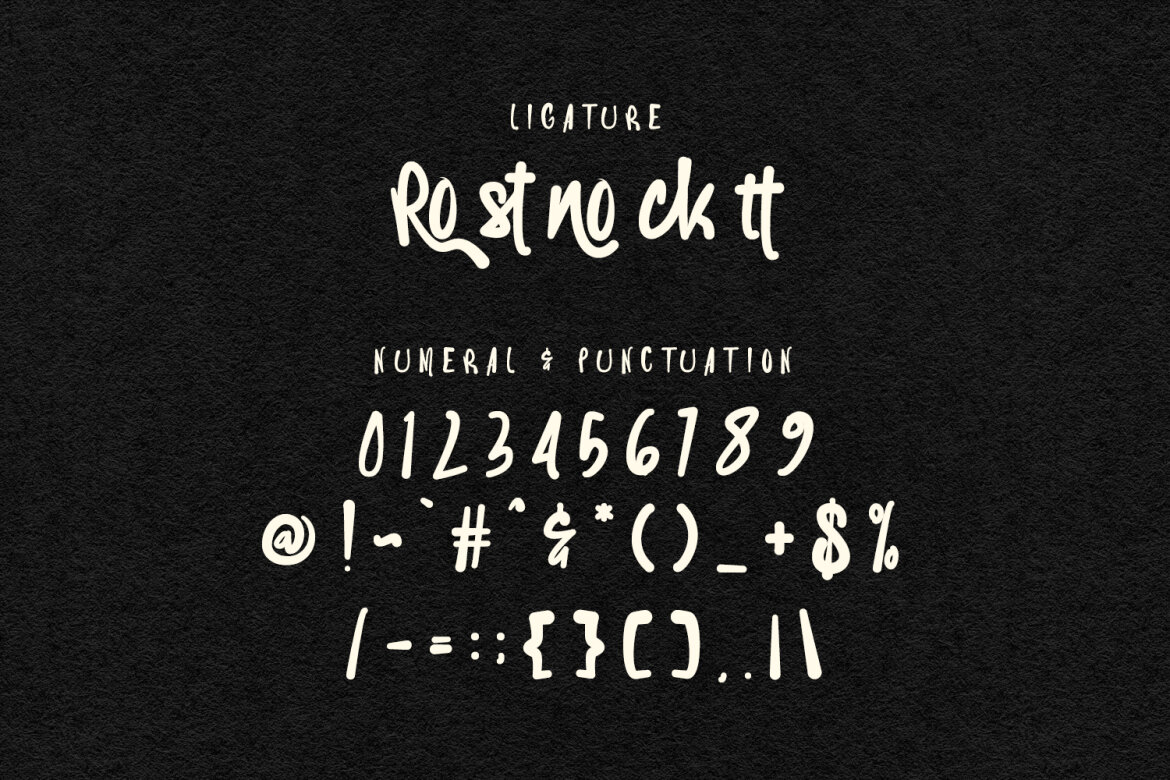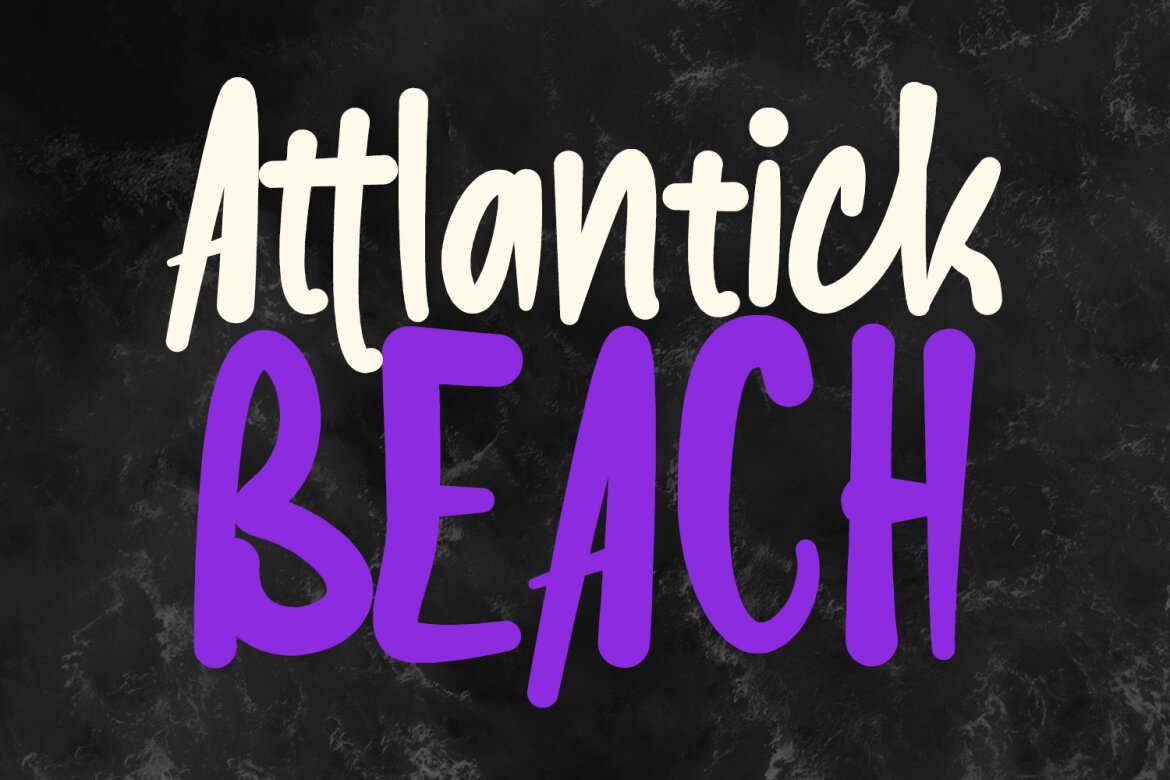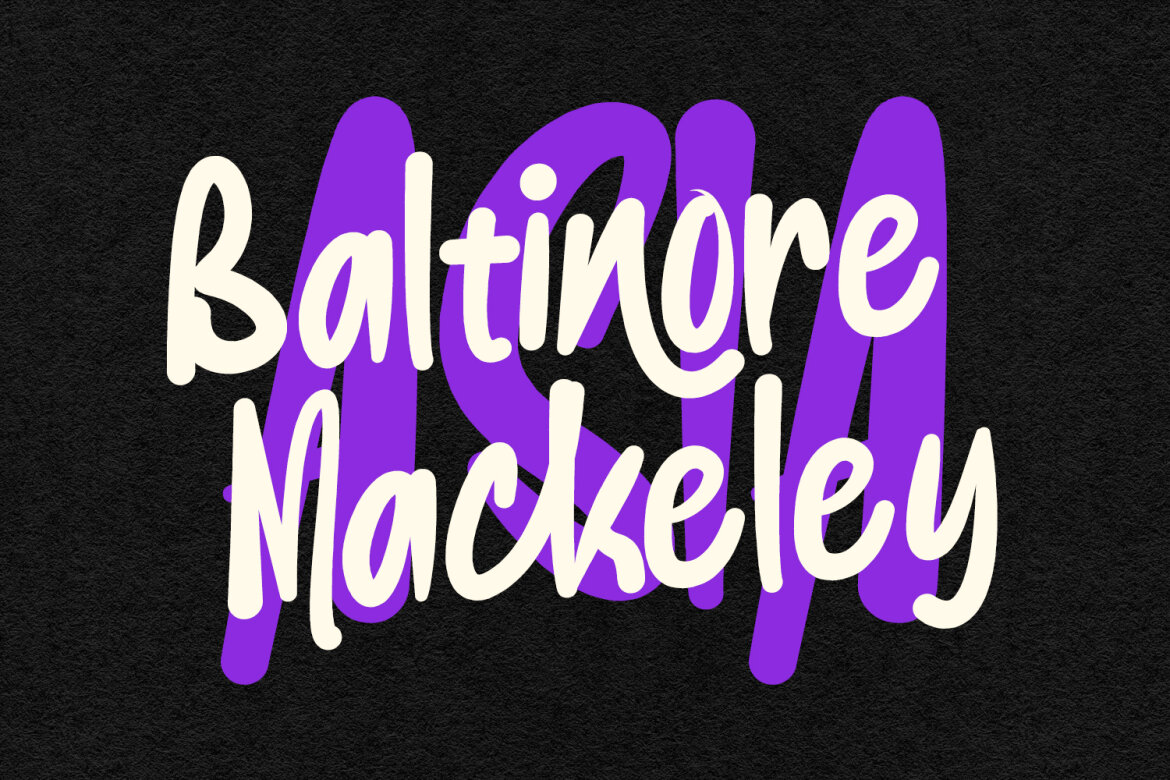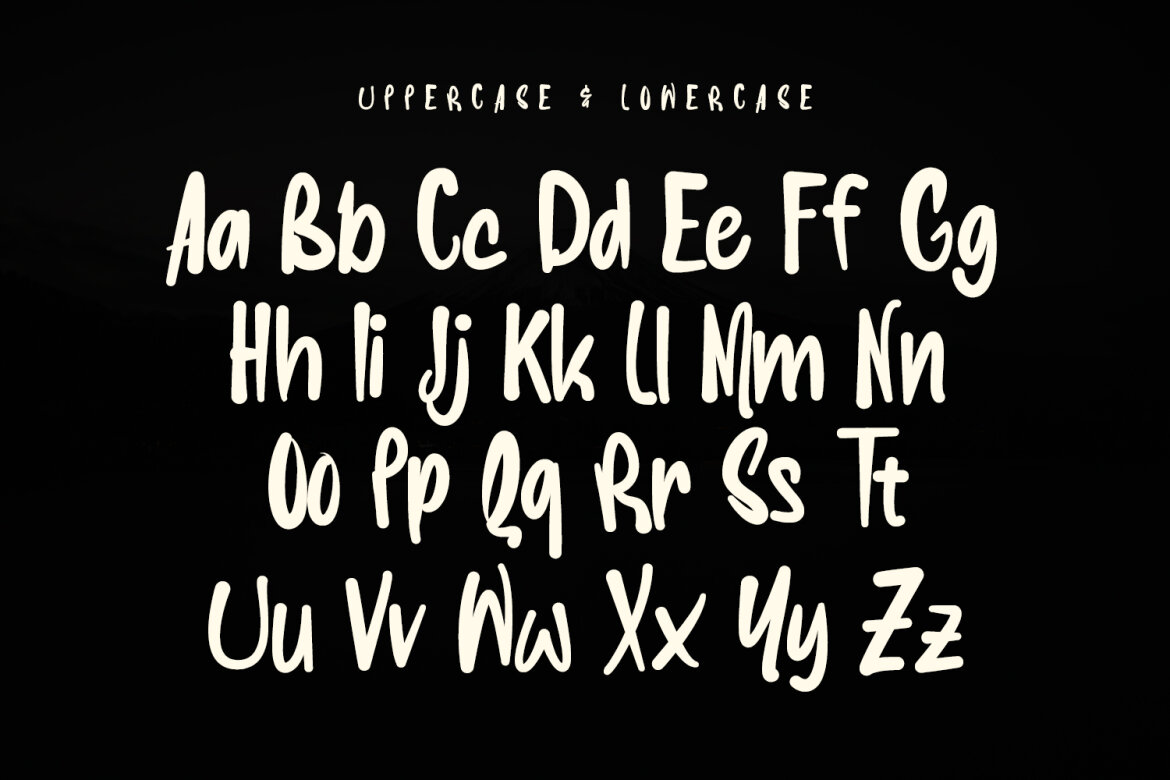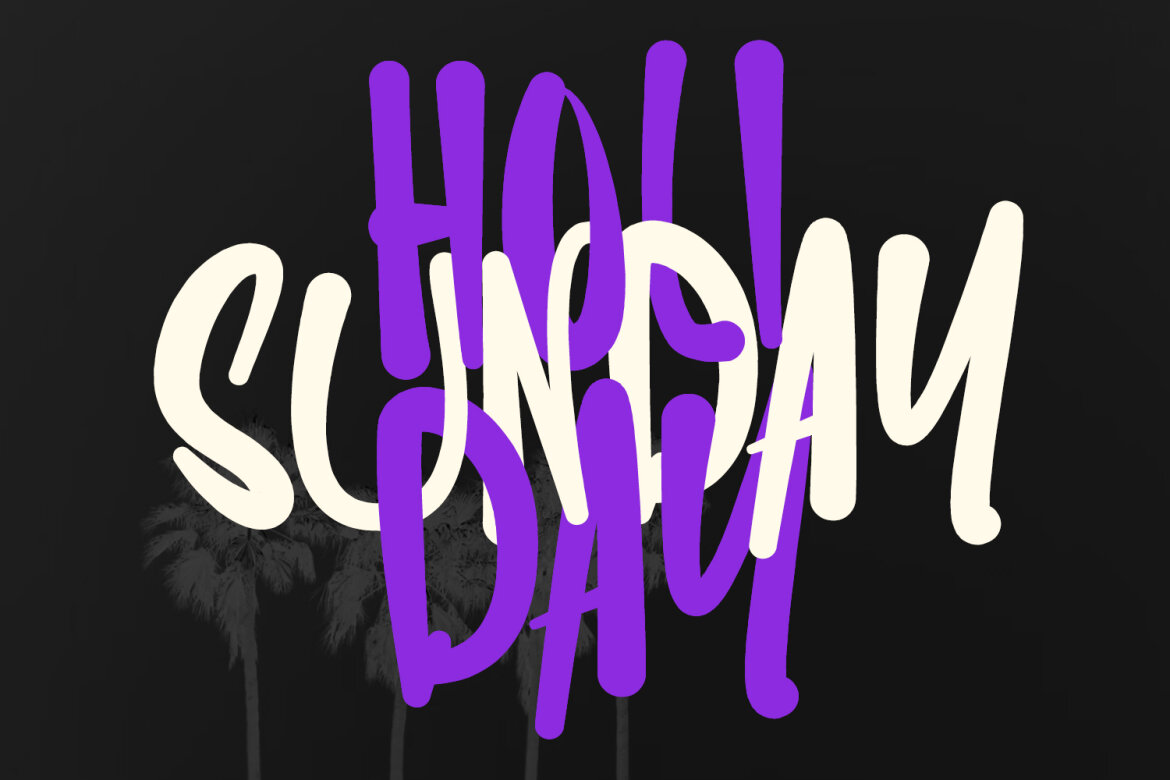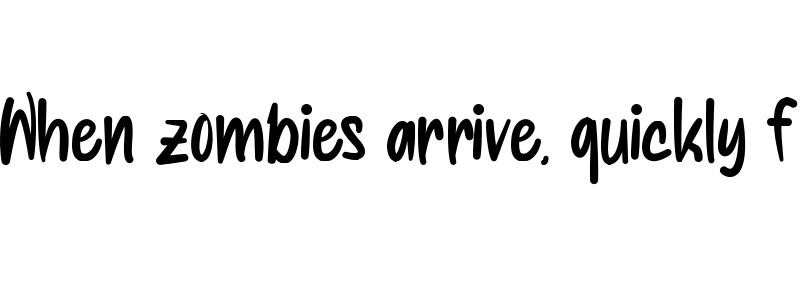
Feuto Handwritten FREE Font
Feuto
Feuto handwritten font. Fun character with a ligatures. To give you an extra creative work. Feuto support multilingual language. This font is good for logo design, Social media, Movie Titles, Books Titles, a short text even a long text letter and good for your secondary text font with script or serif. Make a stunning work with Feuto handwritten font.